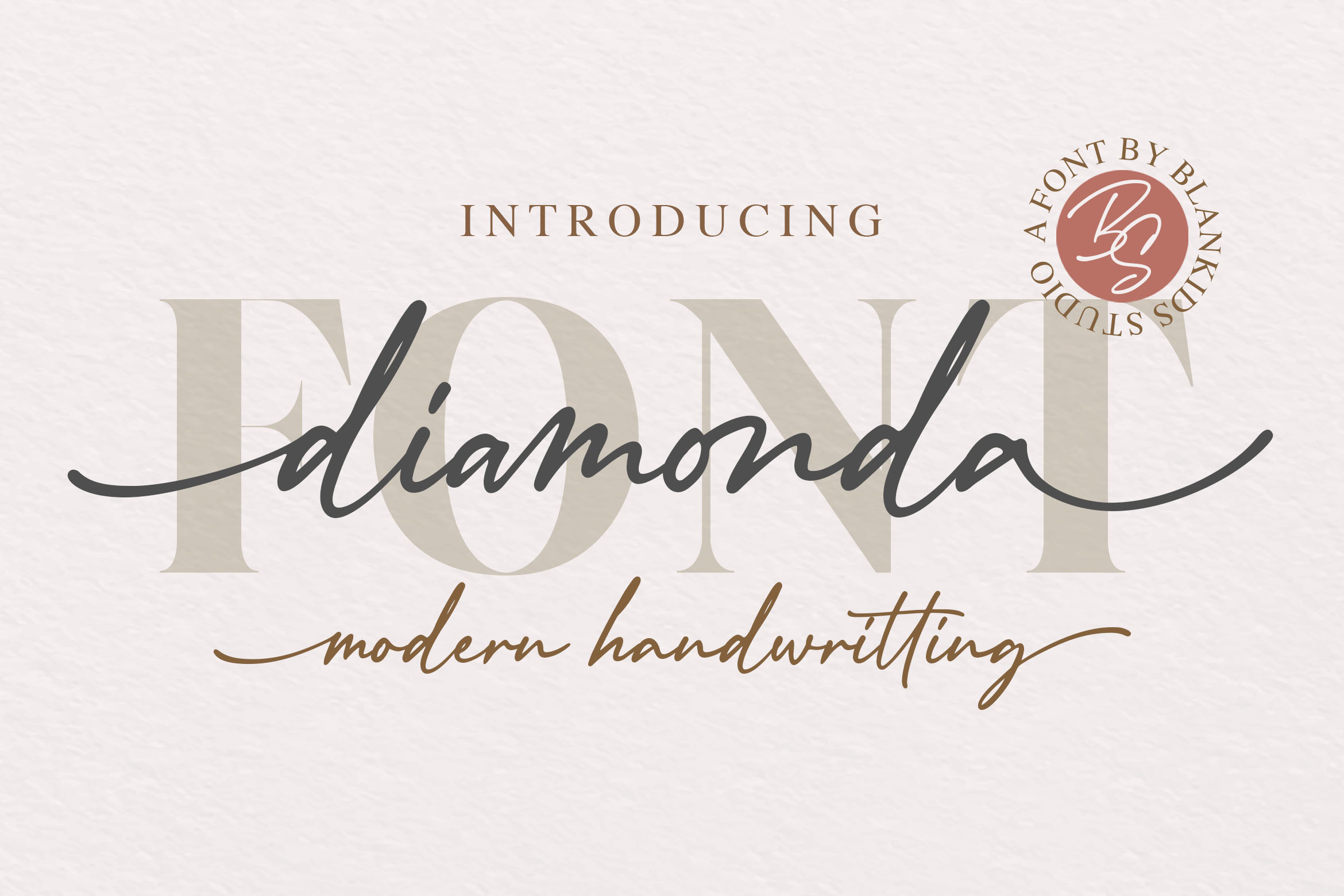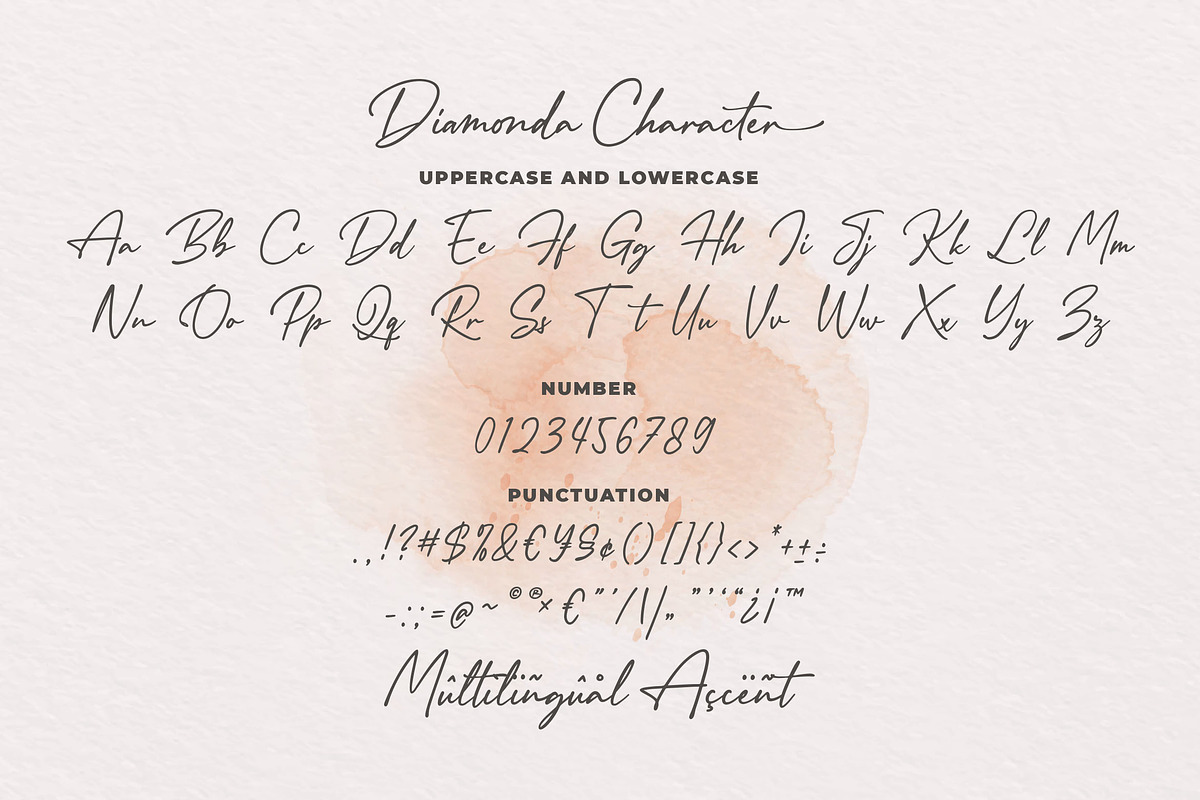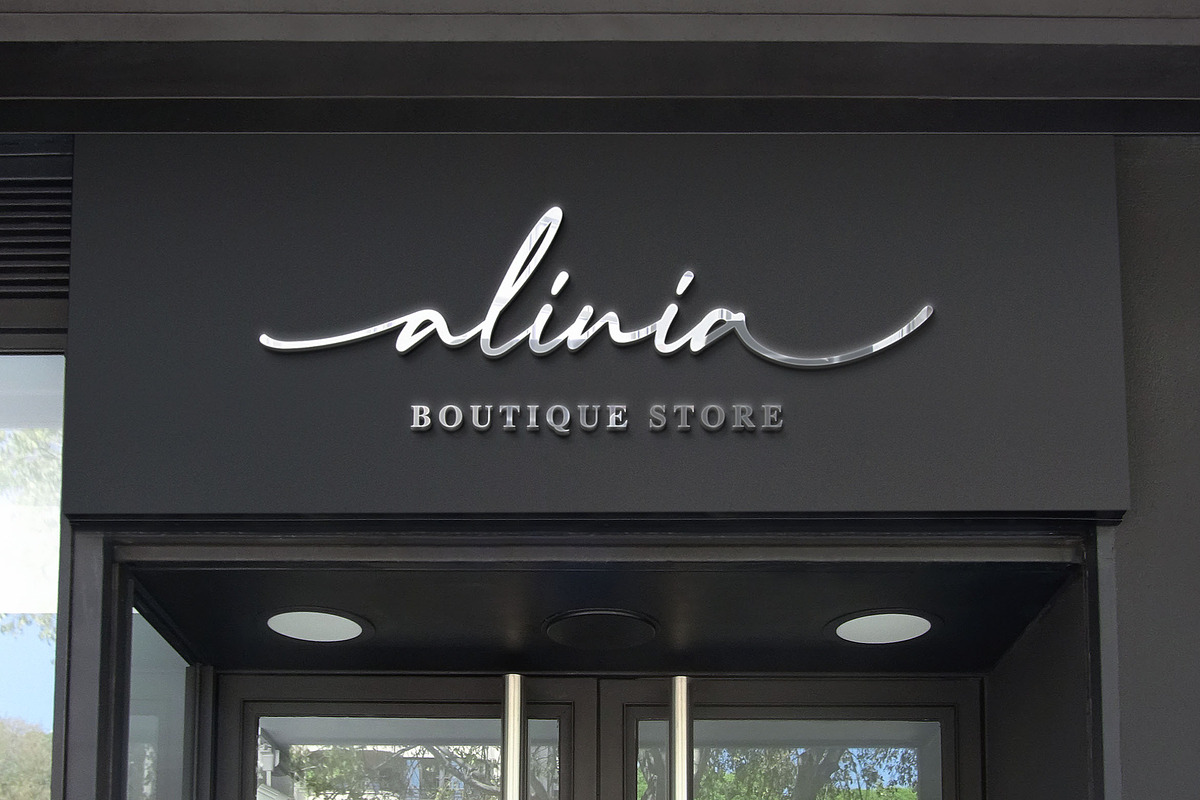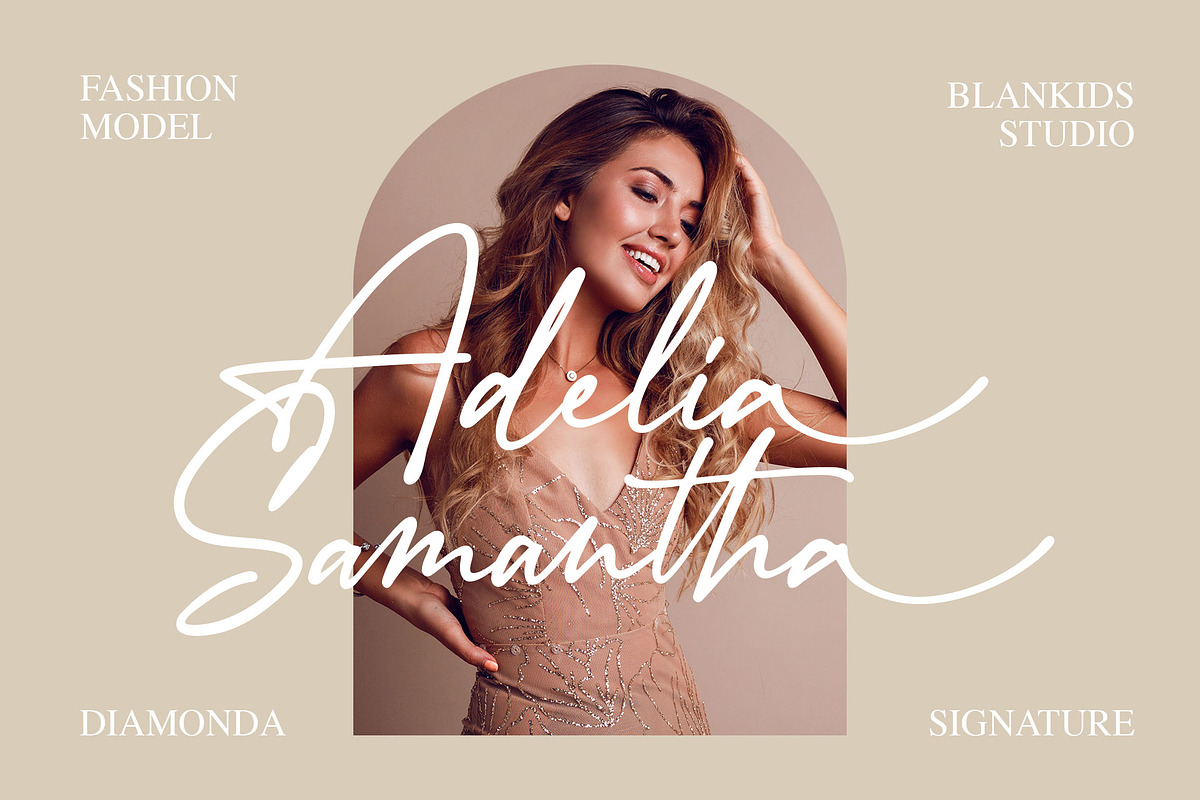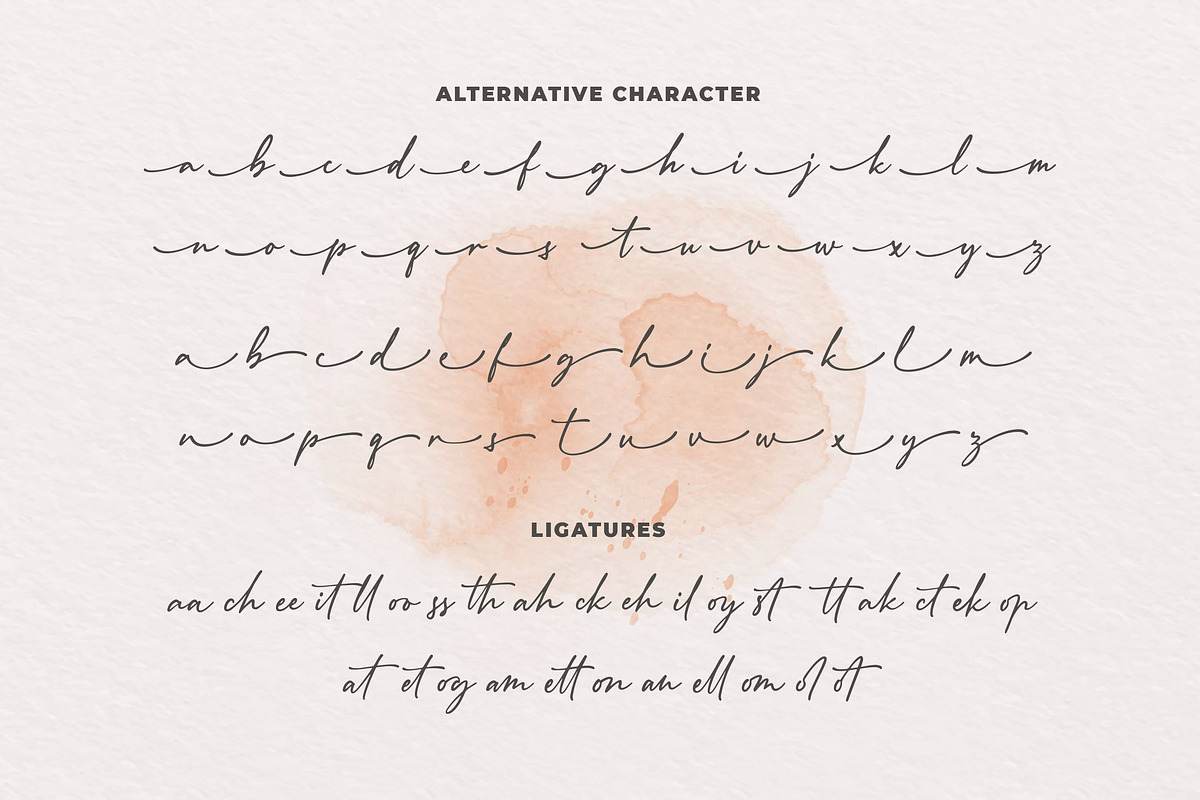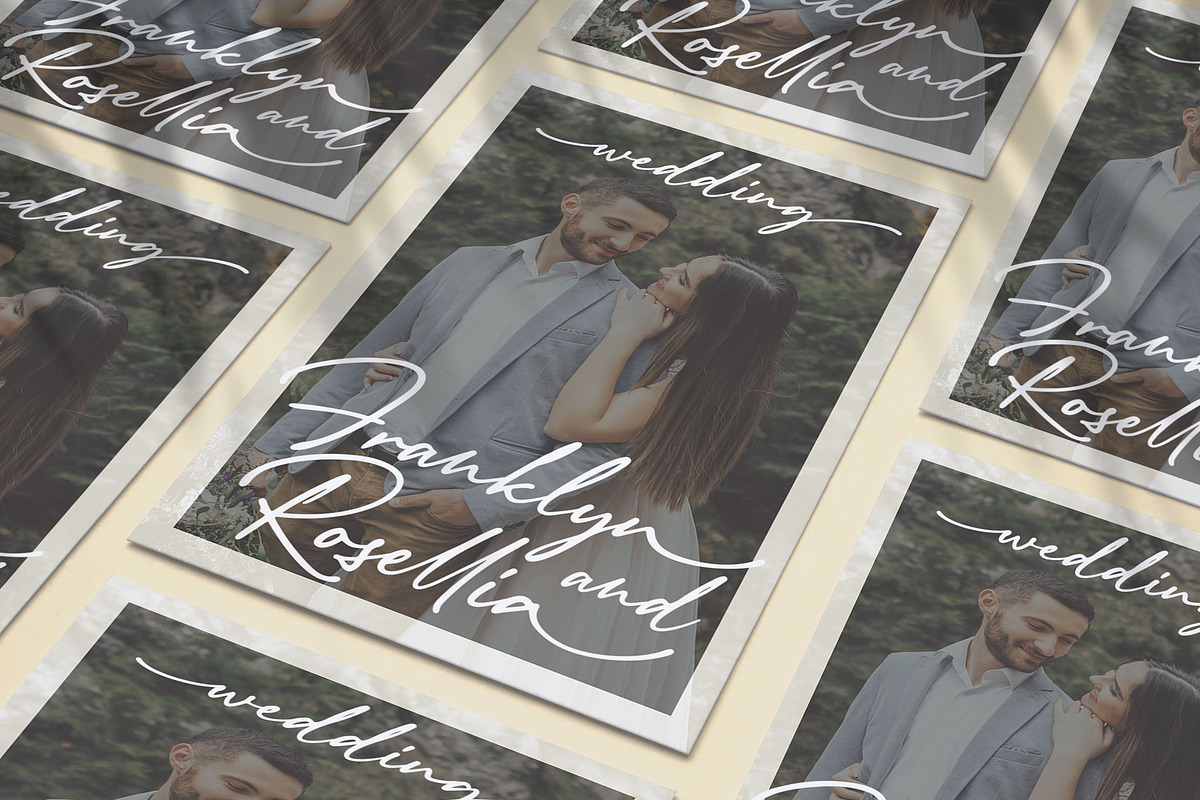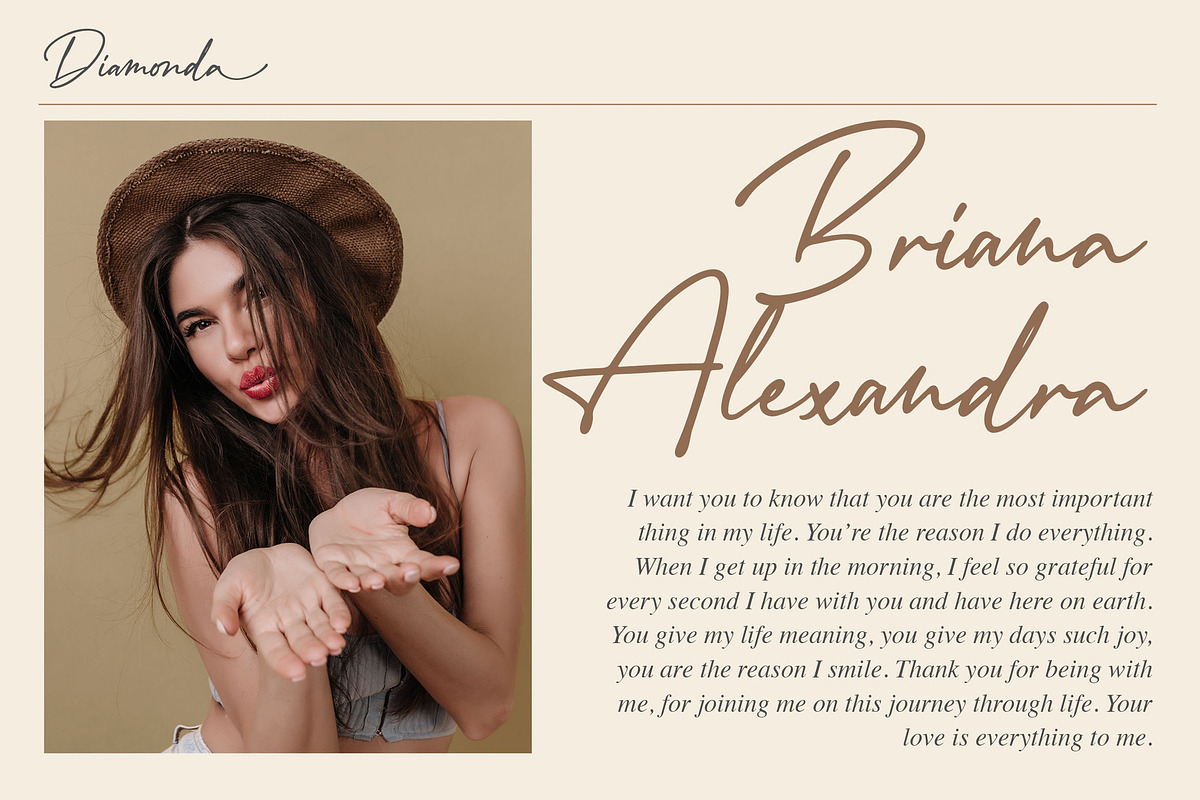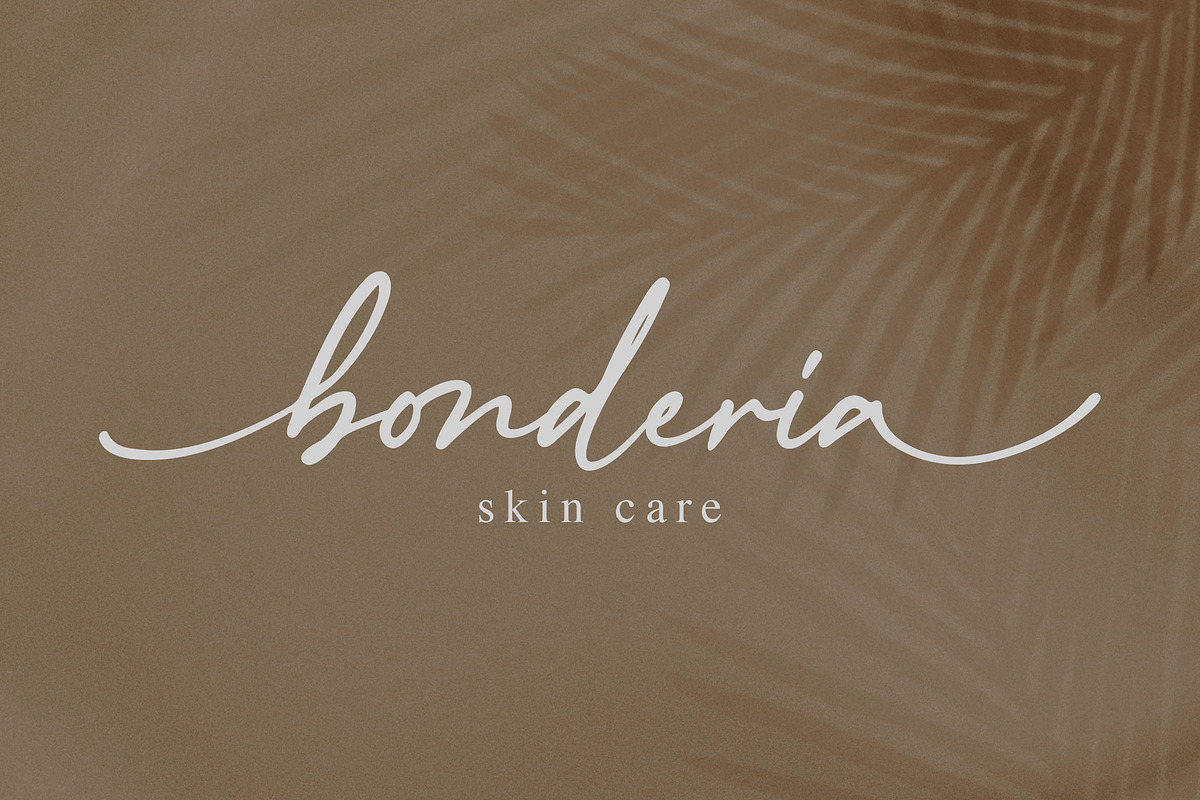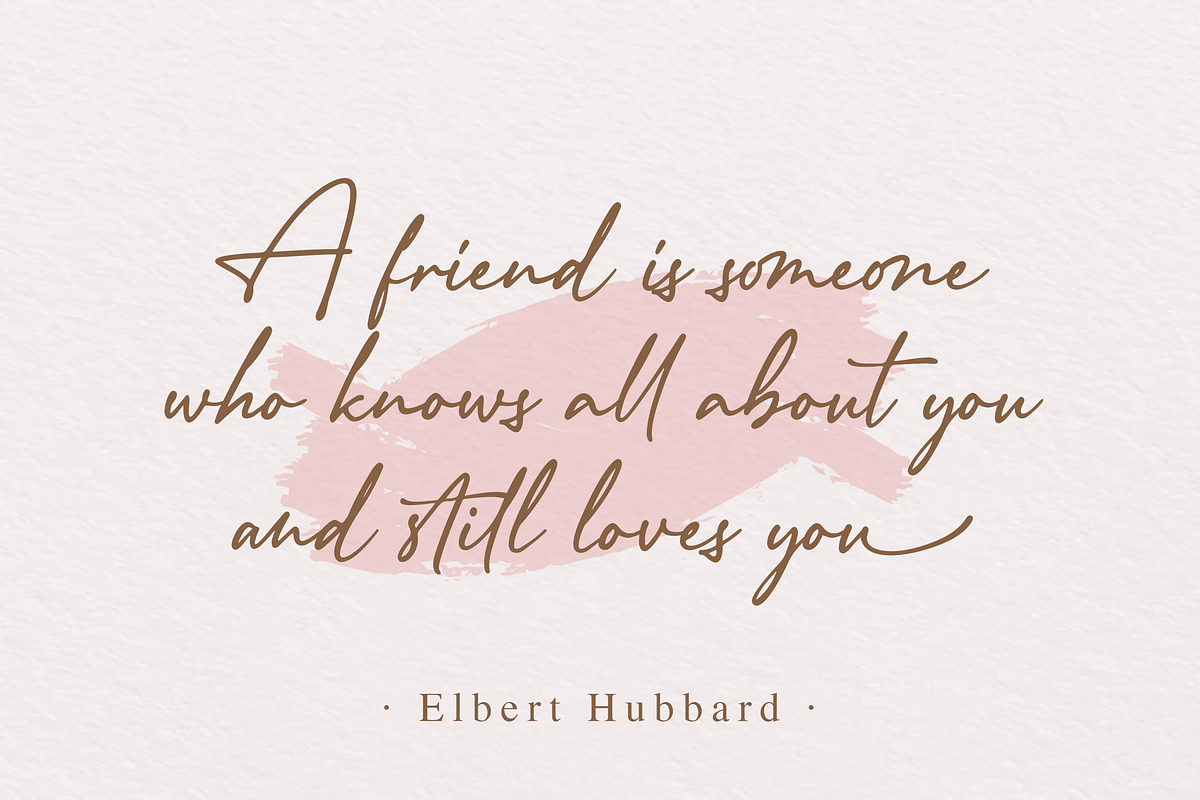
Diamonda - Modern Handwritting Font
Introducing of our new product the name is Diamonda Modern Handwritting Font. Diamonda inspired by signature style this font is a fun theme very good for display, tshirt design, craft, quote sign, logotype and etc